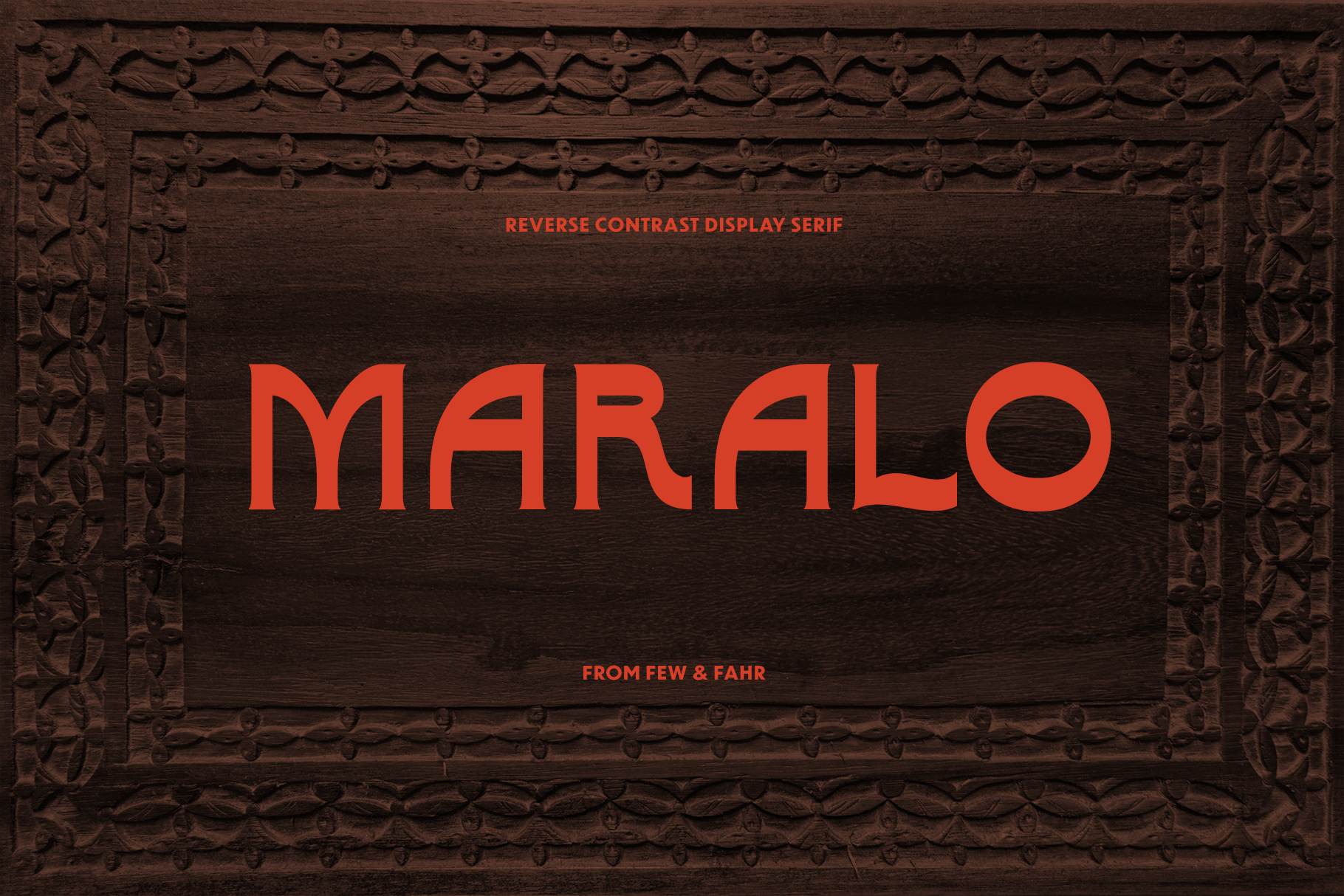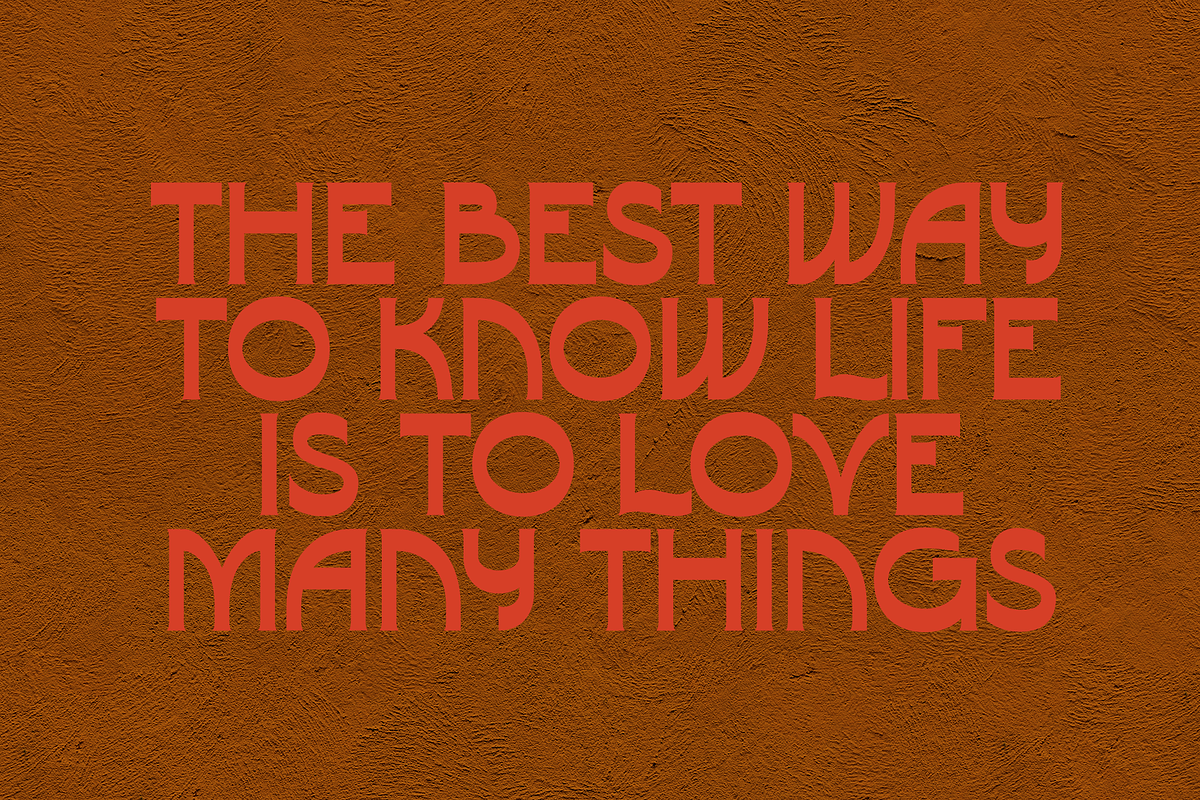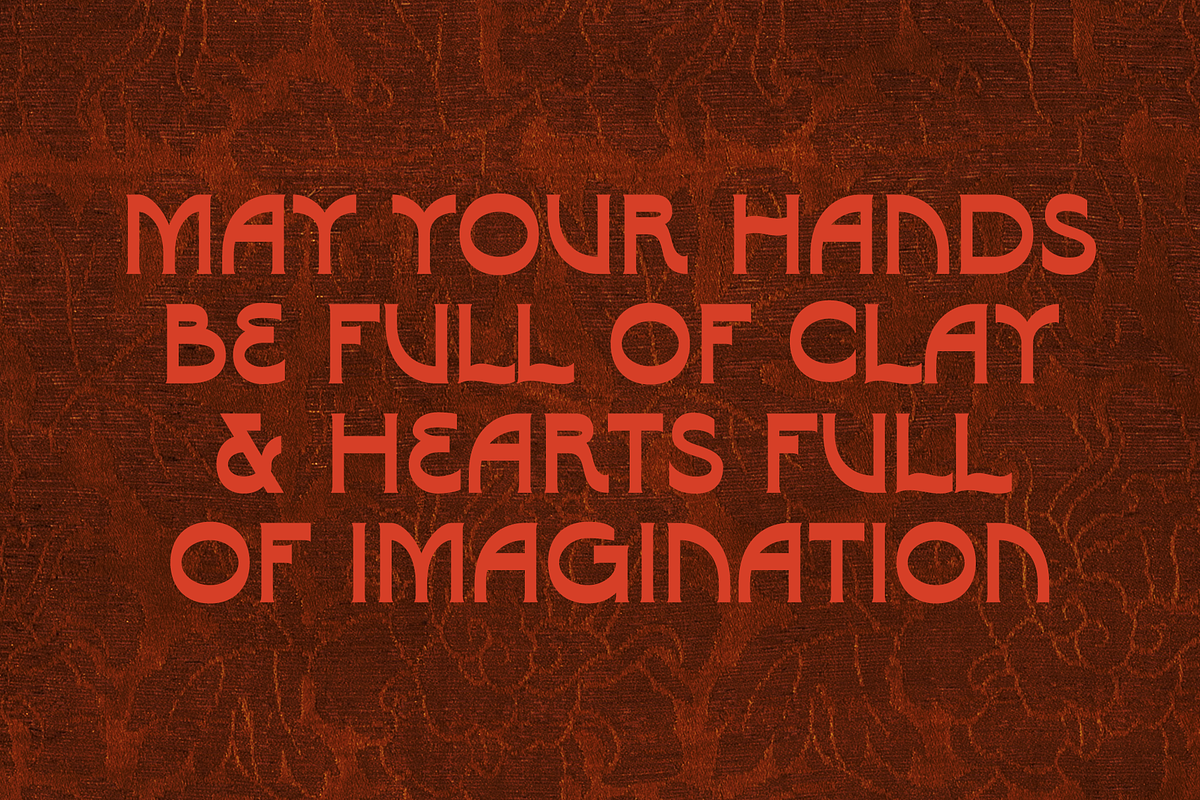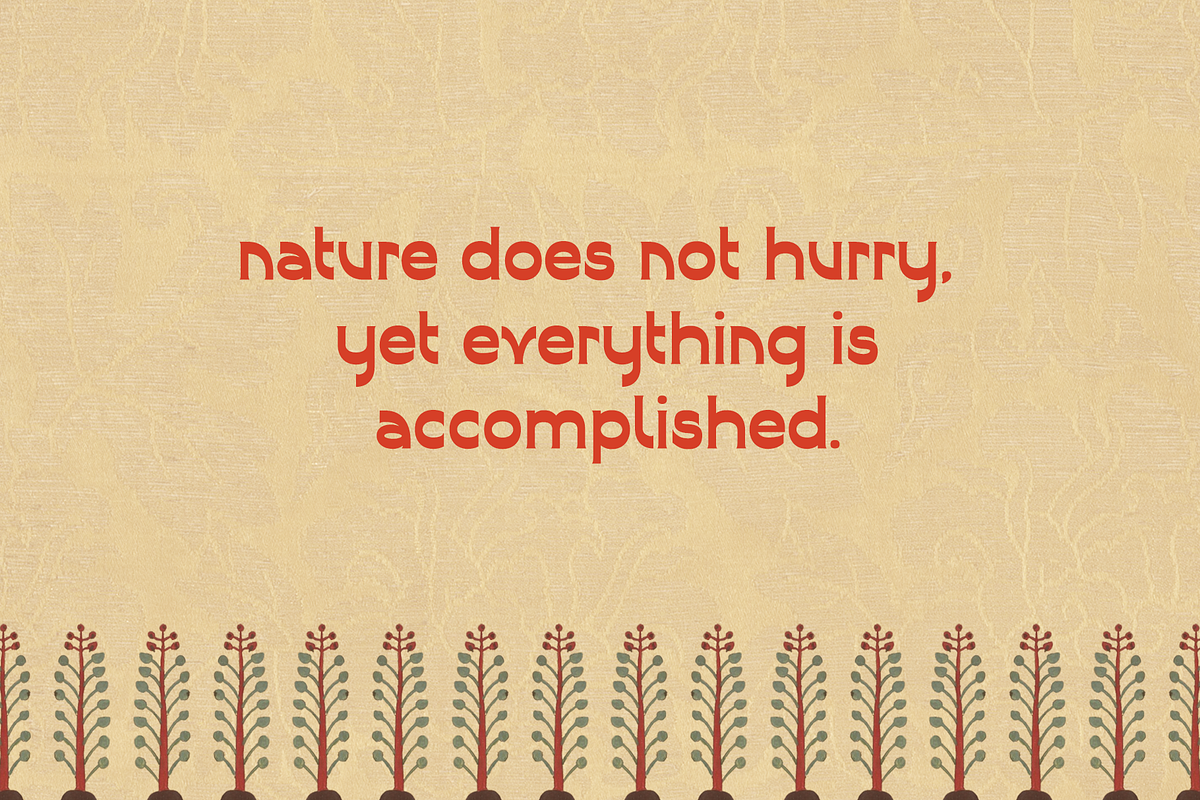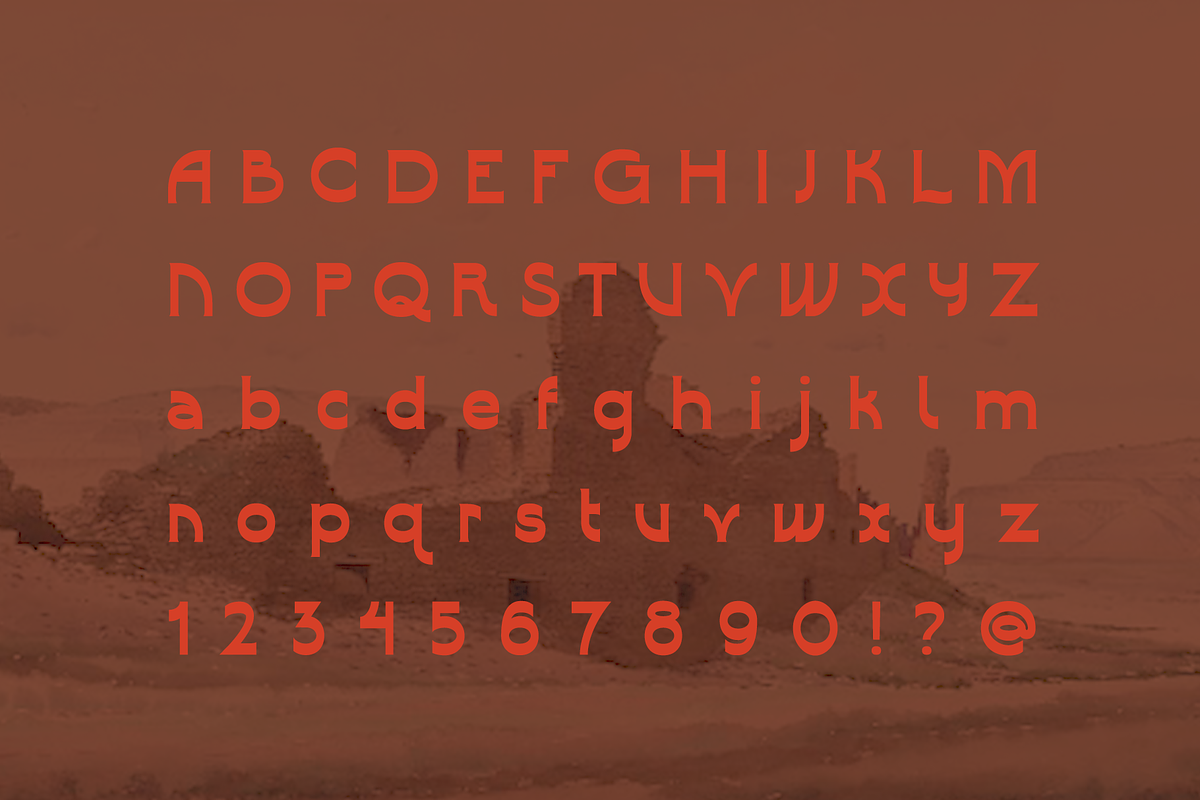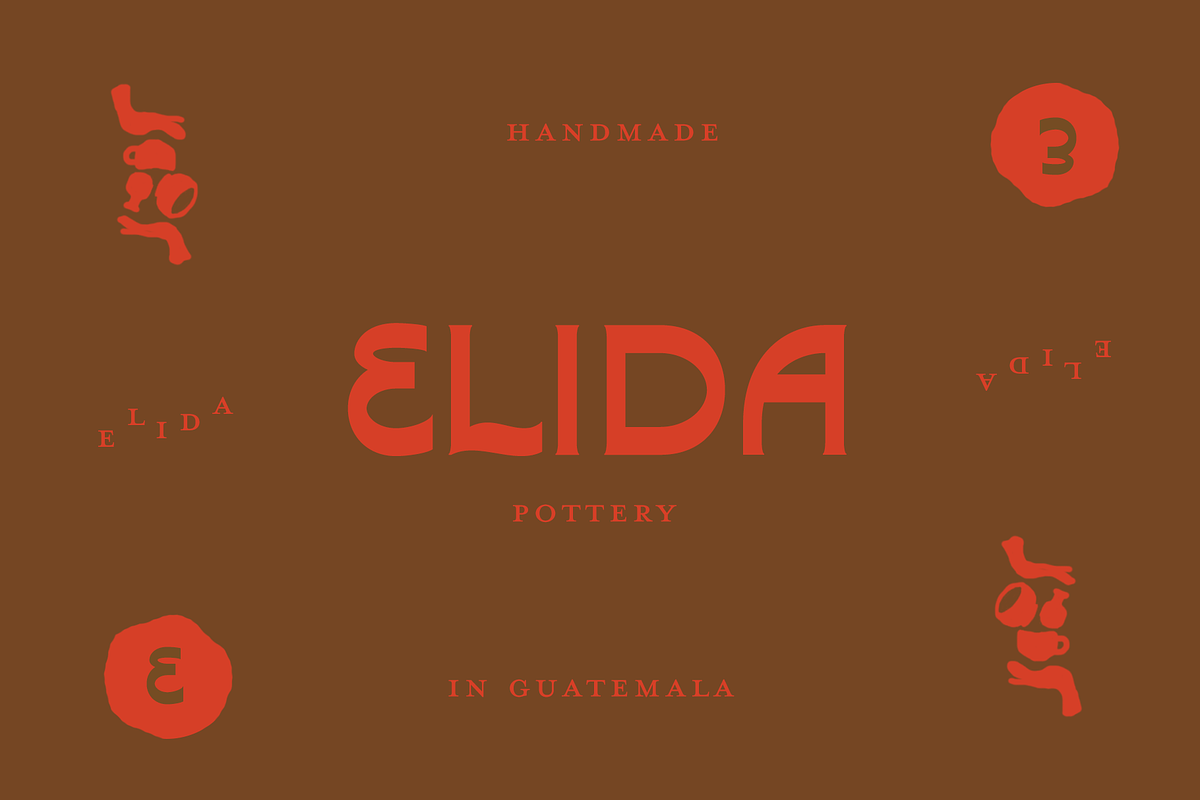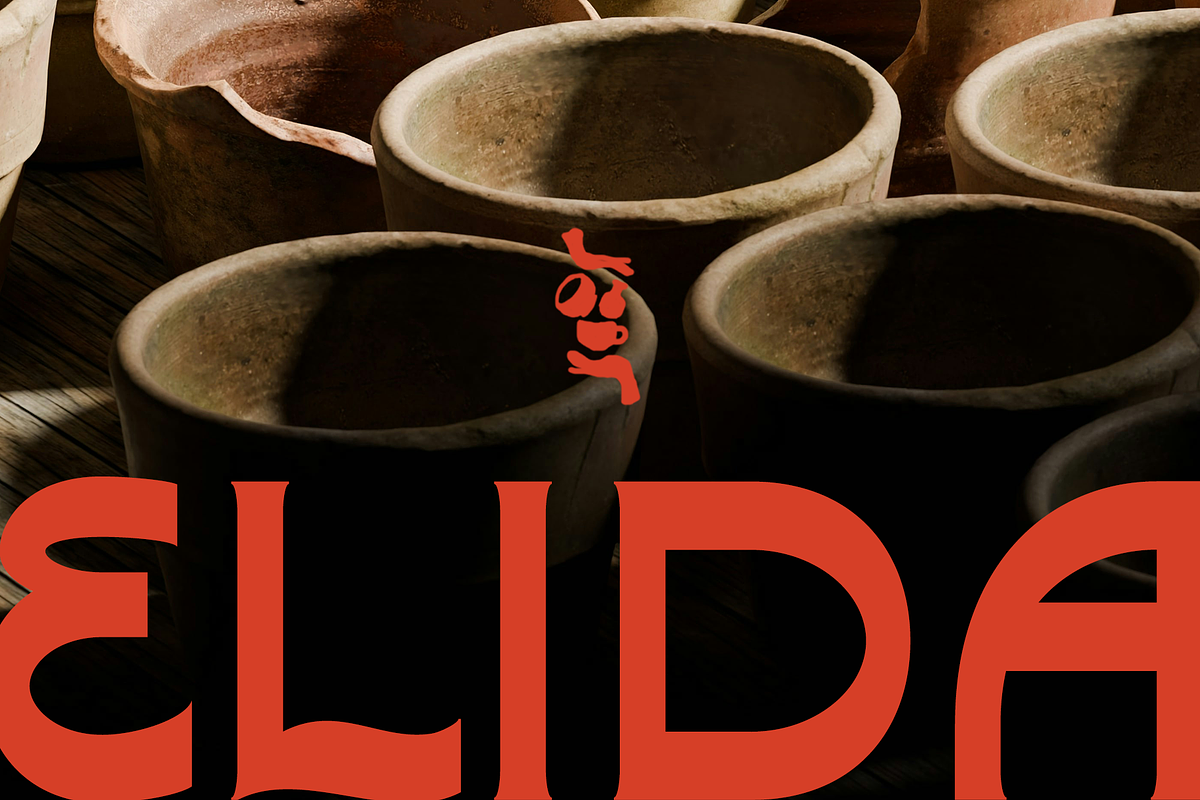
MARALO Typeface
Maralo is a reverse contrast serif display. The serifs add a subtle organic feel, differentiating Maralo from other reverse contrast fonts. Inspiration was drawn from groovy 70s vibes and Spanish typography.